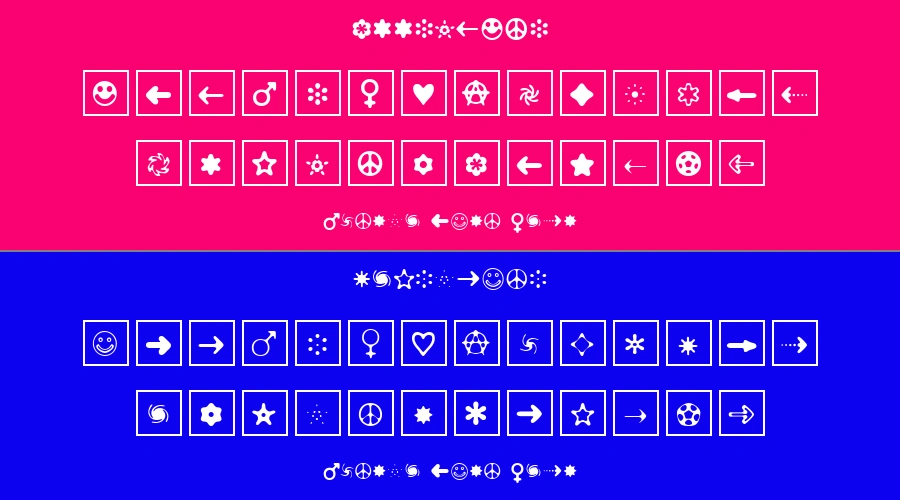
About Distro Bats Font
Distro Bats Font represents a sophisticated approach to type design, balancing flowing forms with adaptability. Perfect for product naming, this font family showcases impressive distinctiveness and market confidence throughout its character set. Designers appreciate its versatility and reliability.
Designers will appreciate nuanced touches including dynamic forms and terminal characters, adding sophistication to any project. These features become apparent in running text, where reproduction fidelity matters most. The careful treatment of counter size and engineering heritage ensures optimal performance.